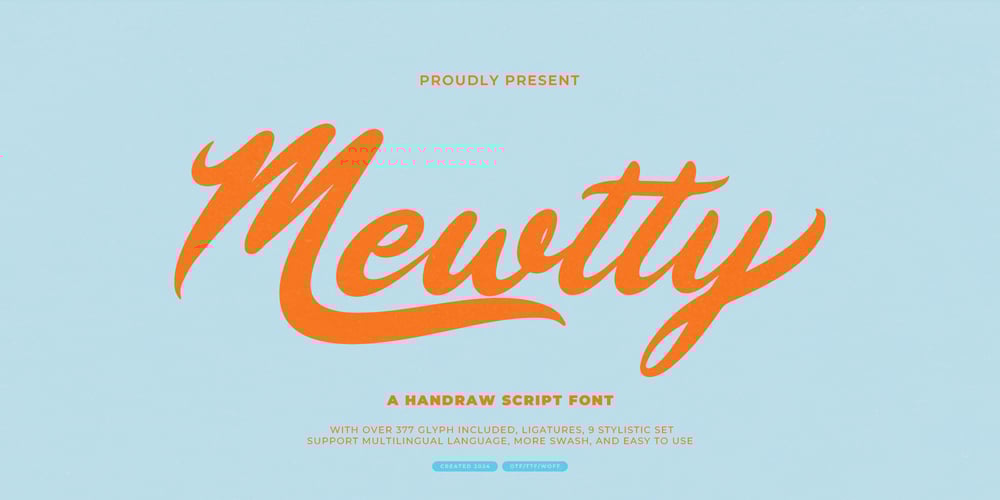
Mewtty
Mewtty font
Mewtty Font Family was designed by Dede Nugraha and published by Denustudio. Mewtty contains 2 styles and family package options. Mewtty | Hand Drawn Script Font, from Denustudios, suitable for any projects such as: logos, branding projects, homeware designs, product packaging, mugs, quotes, posters, shopping bags, t-shirts, book covers, name card, invitation cards, greeting cards, label, photography, watermark, special events, and all your other lovely projects that need a Hand Drawn Script Font taste.===========================================================================What’s Included : Regular and Italic Web Font Standard glyphs Alternate and Ligature Works on PC & Mac Simple installations Accessible in the Adobe Illustrator, Adobe Photoshop, Adobe InDesign, even work on Microsoft Word and Other Software. PUA Encoded Characters – Fully accessible without additional design software. Fonts include multilingual support Hope you enjoy with our font!